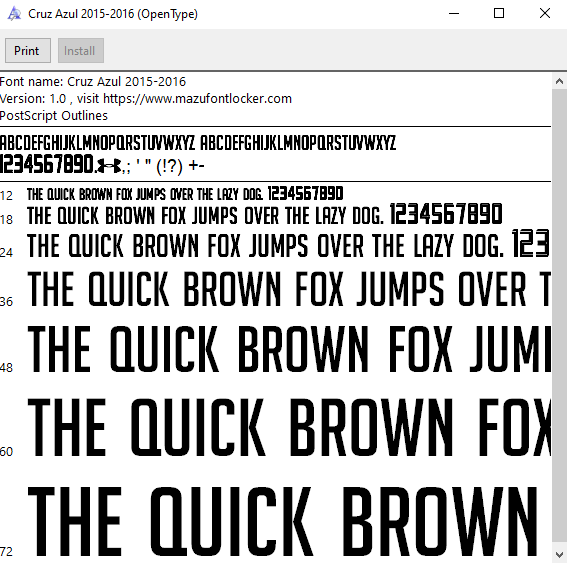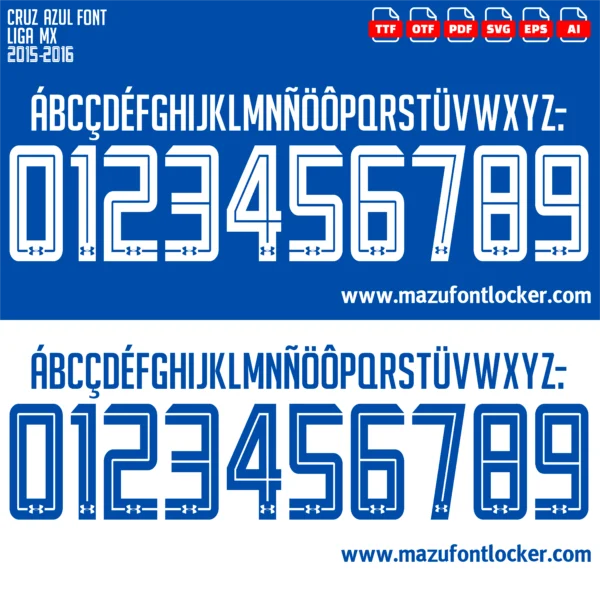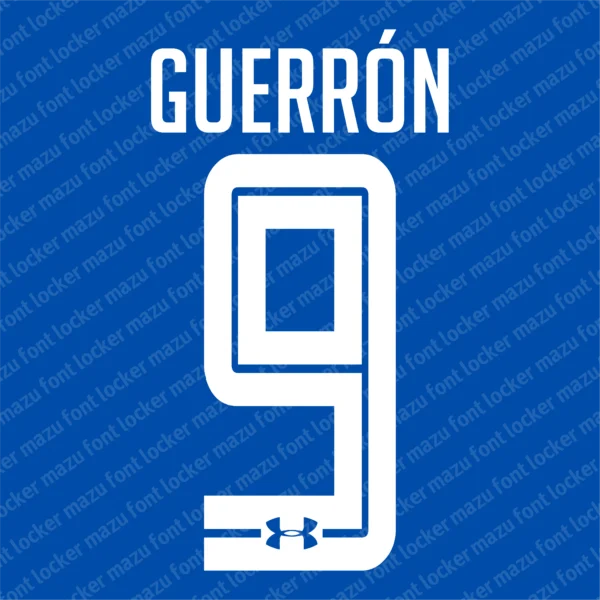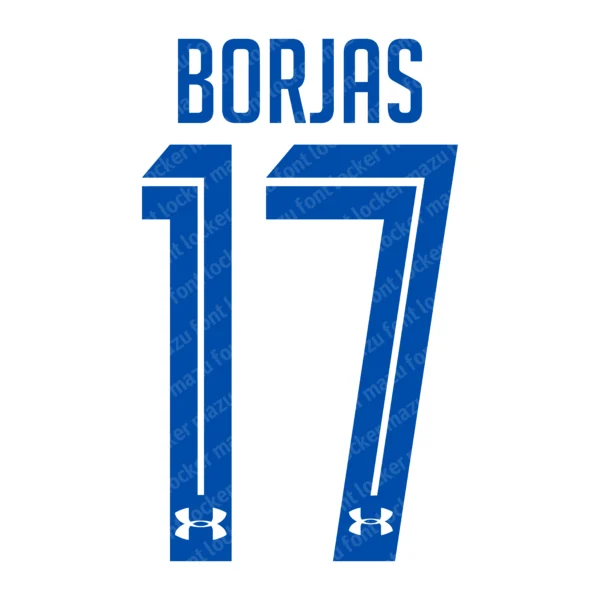
Cruz Azul 2015-2016 Font Vector – Stunning La Máquina Masterpiece
This font captures the sharp, precision-crafted lettering inspired by Cruz Azul’s legendary blue identity, proud Mexican football heritage, historic club tradition, and unforgettable 2015-2016 campaign — delivering premium authenticity and classic match-day energy for professional jersey mockups, football graphics, sports branding, fan designs, and high-end creative projects.
Cruz Azul 2015-2016 Font Vector – Stunning La Máquina Retro Typeface
The Cruz Azul 2015-2016 Font Vector is a premium retro football typeface designed to recreate the distinctive lettering associated with Club de Fútbol Cruz Azul during the 2015-2016 era. This high-quality vector font kit captures a bold, classic, clean, and instantly recognizable football typography style inspired by La Máquina’s iconic blue identity and rich Mexican football heritage.
Designed for professional graphic designers, football enthusiasts, jersey collectors, and passionate Cruz Azul supporters, the Cruz Azul 2015-2016 Font Vector delivers an authentic vintage football aesthetic for creating realistic retro jersey mockups, classic football merchandise, social media graphics, historic match posters, squad designs, banners, and custom fan artwork. Every character has been carefully recreated to reflect the powerful and traditional visual style associated with one of Mexico’s most historic football clubs.
Why Choose Cruz Azul 2015-2016 Font Vector
This font stands out thanks to its precise vector construction and authentic retro football styling. Every letter and numeral has been meticulously recreated to deliver a distinctive football lettering aesthetic inspired by Cruz Azul’s 2015-2016 period and its celebrated Mexican football heritage.
Whether you’re producing professional retro football kit templates, classic jersey concepts, Liga MX graphics, vintage football posters, or eye-catching football content, the Cruz Azul 2015-2016 Font Vector delivers a genuine match-ready appearance inspired by the identity of La Máquina.
The lettering featured in the Cruz Azul 2015-2016 Font Vector combines strong geometric lines with classic football proportions. The result is a premium and highly readable typeface that reflects Cruz Azul’s traditional blue identity, historic Mexican football heritage, and iconic status in Liga MX.
The numerals feature balanced curves, sharp edges, and consistent spacing for maximum readability on classic football jerseys and digital media. Built entirely as scalable vectors, every number remains crisp and clear for jersey customization, posters, banners, print projects, social media graphics, and high-resolution retro football artwork.
• Complete uppercase A–Z alphabet and numbers 0–9 in authentic Cruz Azul 2015-2016 inspired style
Cruz Azul 2015-2016 Era
The 2015-2016 period represents an important chapter in Cruz Azul’s long and celebrated football history. During this era, La Máquina competed in Mexico’s top-flight football competition, Liga MX, while maintaining its recognizable blue identity and strong presence in Mexican football.
The Cruz Azul 2015-2016 Font Vector is inspired by the distinctive football typography and visual identity associated with the club during this classic period, making it an excellent choice for designers creating retro jersey concepts, vintage Liga MX posters, classic squad graphics, football artwork, social media designs, and fan-made projects.